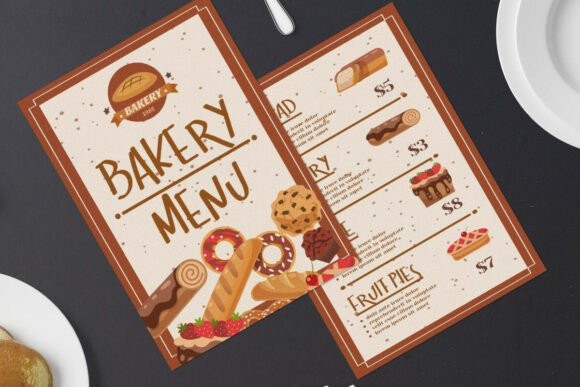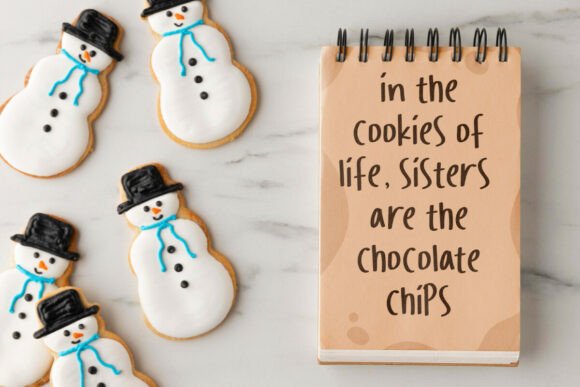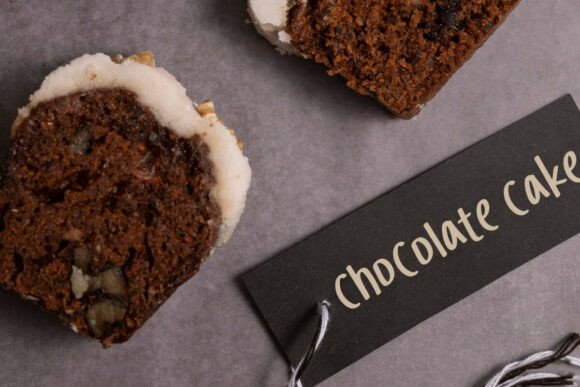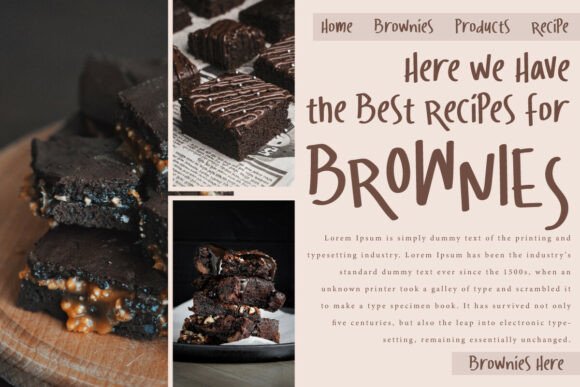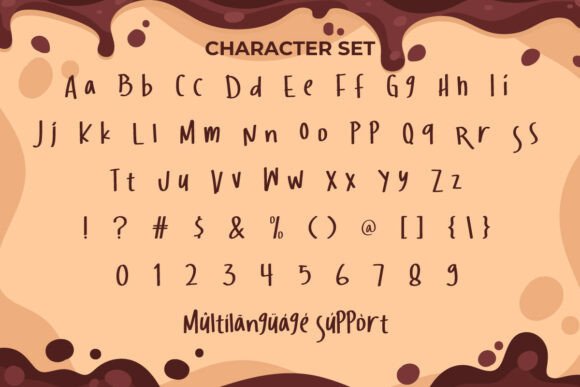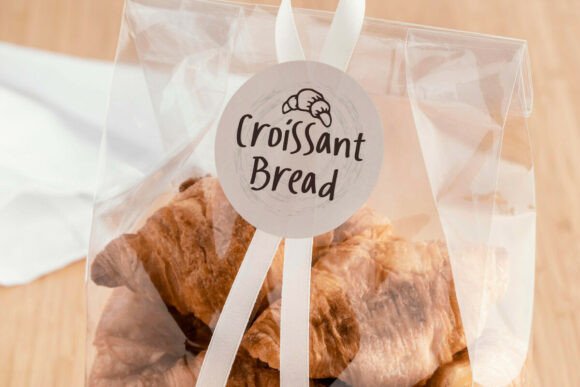
Unwrapping the Perfect Recipe for Design Success
Who among us hasn’t experienced that magical moment when a delicious brownie fresh from the oven transports us to a world of comfort and happiness? For designers, capturing that same essence of warmth and delight is key to creating a memorable brand identity. That’s where the Dream Brownies Font comes in – a delightful handwritten display font that exudes a relaxed, hand-drawn aesthetic reminiscent of a sweet treat straight from the oven.
With its charming, confectionery-inspired theme and rounded, slightly shaky letterforms, the Dream Brownies Font is the perfect ingredient for food-related branding and packaging. Its genuine, approachable look makes it a valuable asset for designers seeking to create a sense of warmth and handmade quality in their designs.
Dream Brownies Font Key Features
- Unique Characteristics: The Dream Brownies Font features a unique, hand-drawn design with a distressed, vintage aesthetic, making it perfect for creative and artistic projects.
Dream Brownies Font Review
I recently had the chance to work with the Dream Brownies Font, and I must say, it’s a mixed bag. There are some things that I really like about it, and some that left me feeling a bit underwhelmed.
- The font is incredibly playful and whimsical, perfect for designs that need a touch of sweetness.
- The letterforms are well-designed and easy to read, even at smaller sizes.
- The font has a nice, balanced feel to it, with a good mix of thick and thin lines.
- The font is quite limited in its character set, which can make it difficult to use for longer blocks of text.
- The font doesn’t have a lot of customization options, which can make it difficult to get the exact look you want.
- The font feels a bit overused, which can make it harder to stand out in a crowded design.
Overall, I think the Dream Brownies Font is a fun, if somewhat limited, option for designers. While it’s perfect for small projects or designs that need a touch of whimsy, it may not be the best choice for larger projects or those that require a lot of customization.
Tips for Getting the Most Out of the Dream Brownies Font
1. Use the font for creative and whimsical projects, such as food blogs or children’s books.
2. Combine the font with bright and playful colors to create a visually appealing design.
3. Experiment with different font sizes and styles to add emphasis and interest to your text.
1. Food blogs and recipes
2. Children’s books and educational materials
3. Social media graphics and advertising